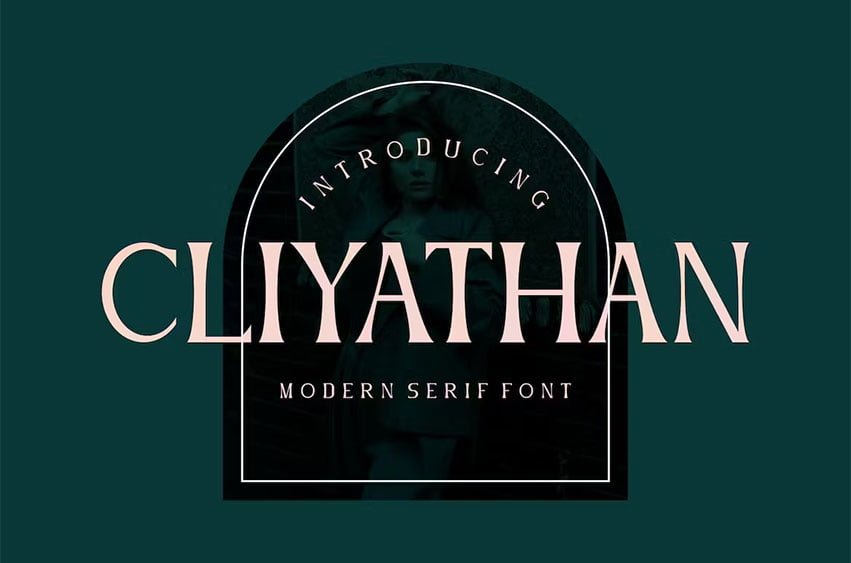
Cliyathan Font Modern Font is a bold and authentic display font. The font is suitable for any branding project like logo, esport, and many more. outstanding in a wide range of contexts.